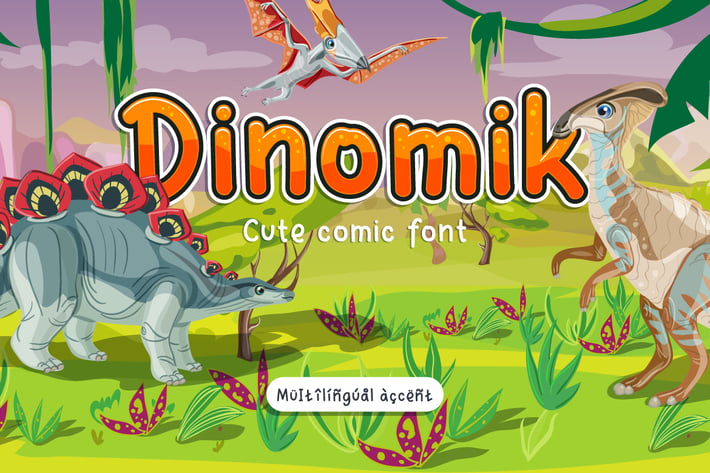
Dinomik - Cute Playful Cartoon Font
Introducing you DINOMIK, a cute and funny cartoon font. This font is suitable for comic, children book, flyer, poster, book cover, card, merchandise, etc. This font has lowercase and uppercase style. Try this font and feel the happiness inside the word!
+ Uppercase
+ Lowercase
+ Number
+ Punctuation